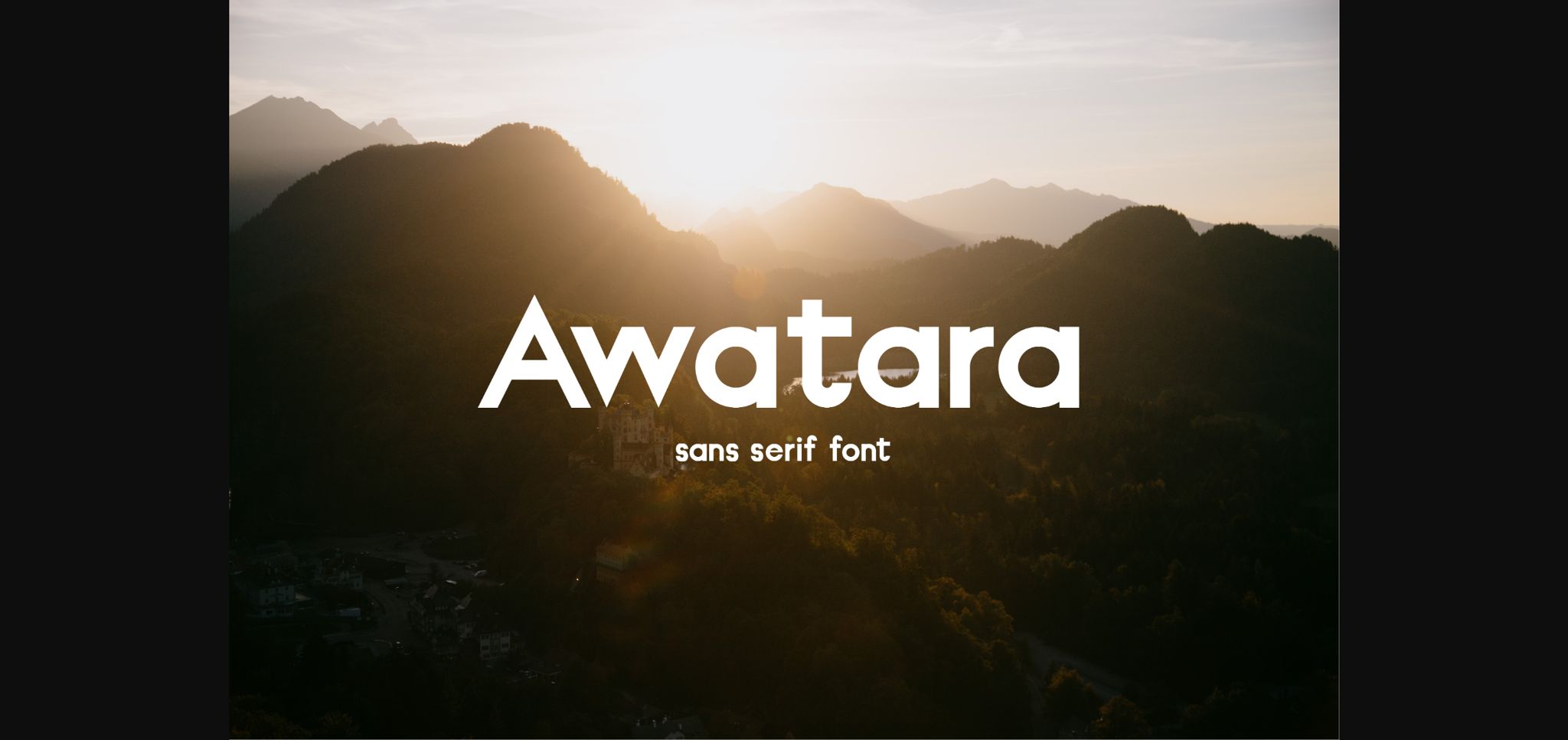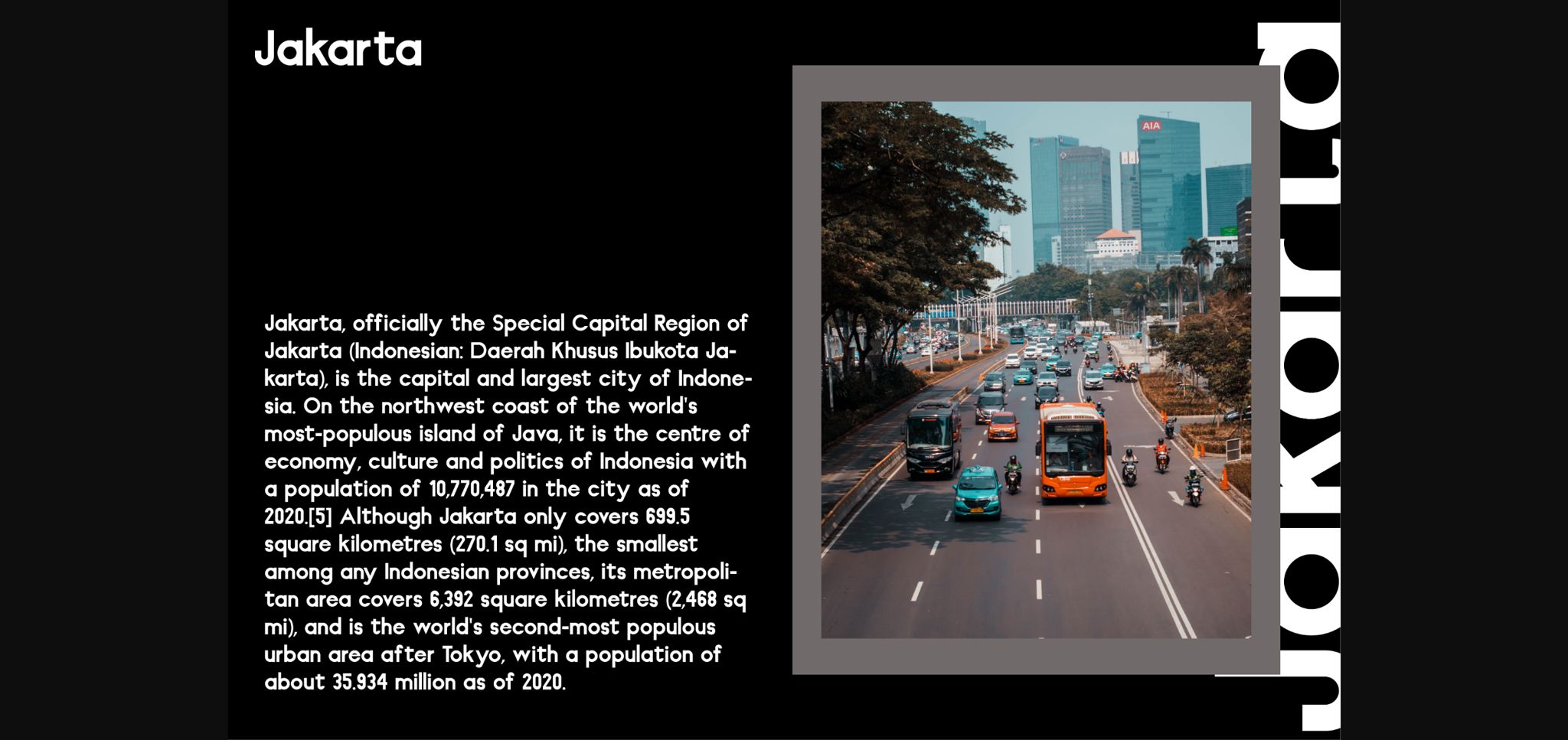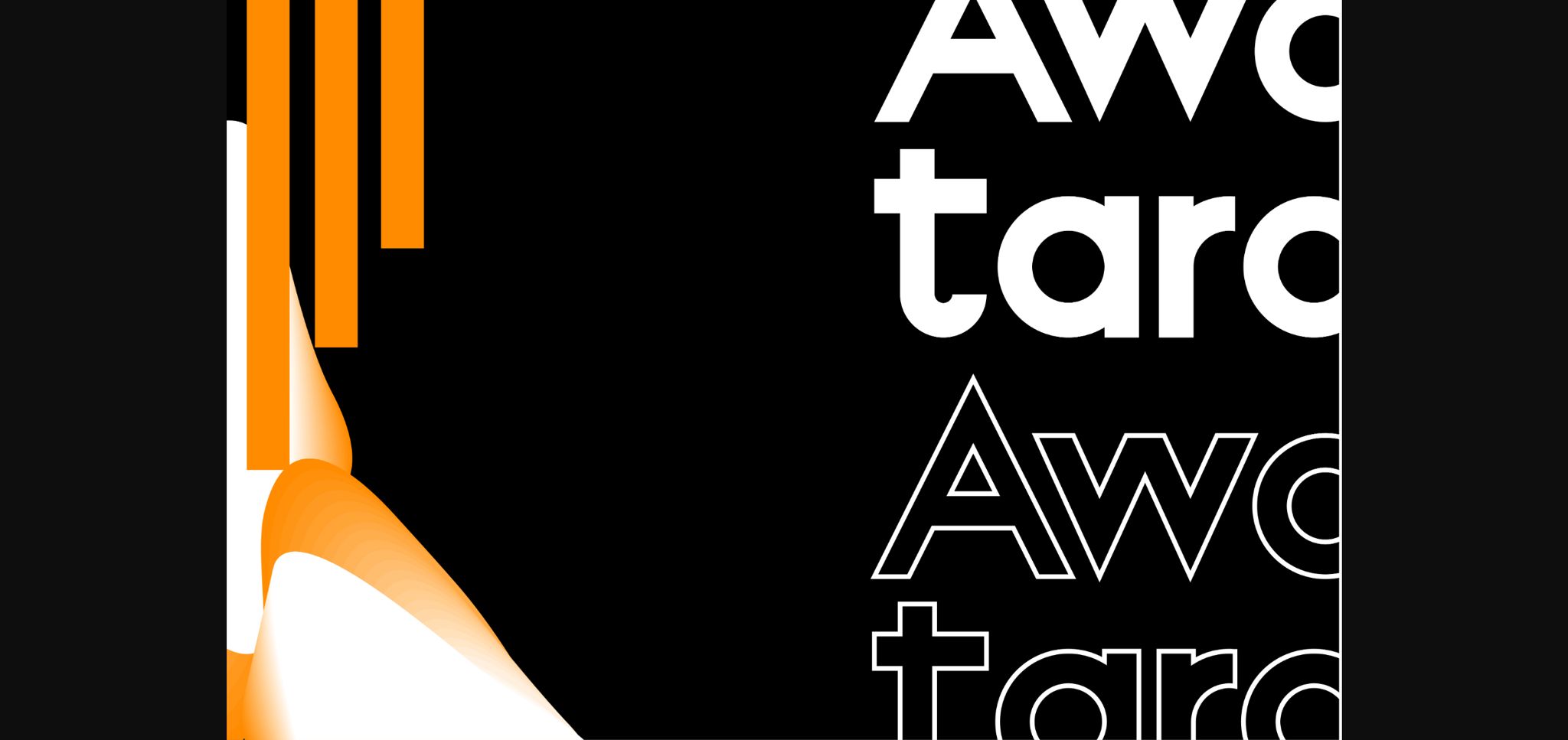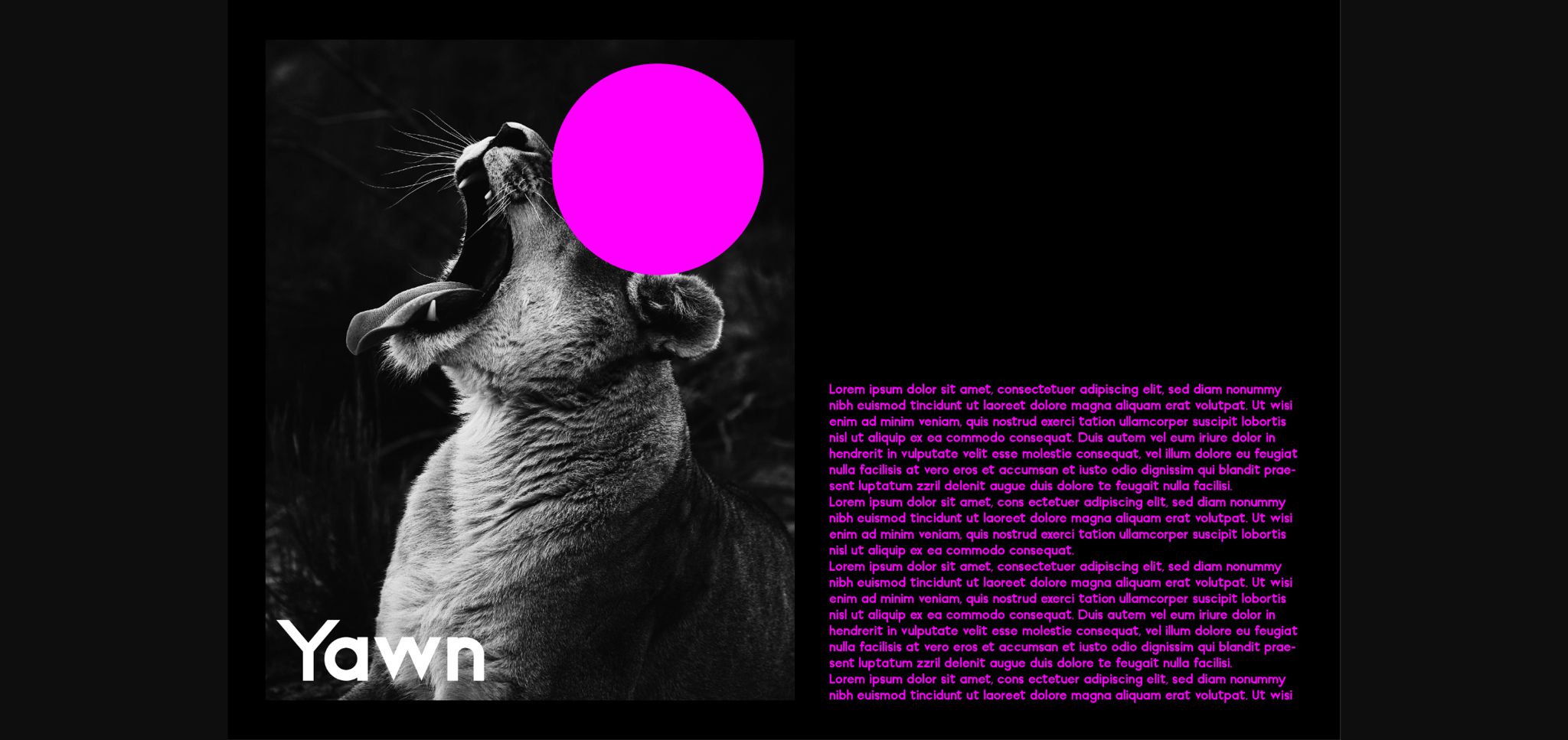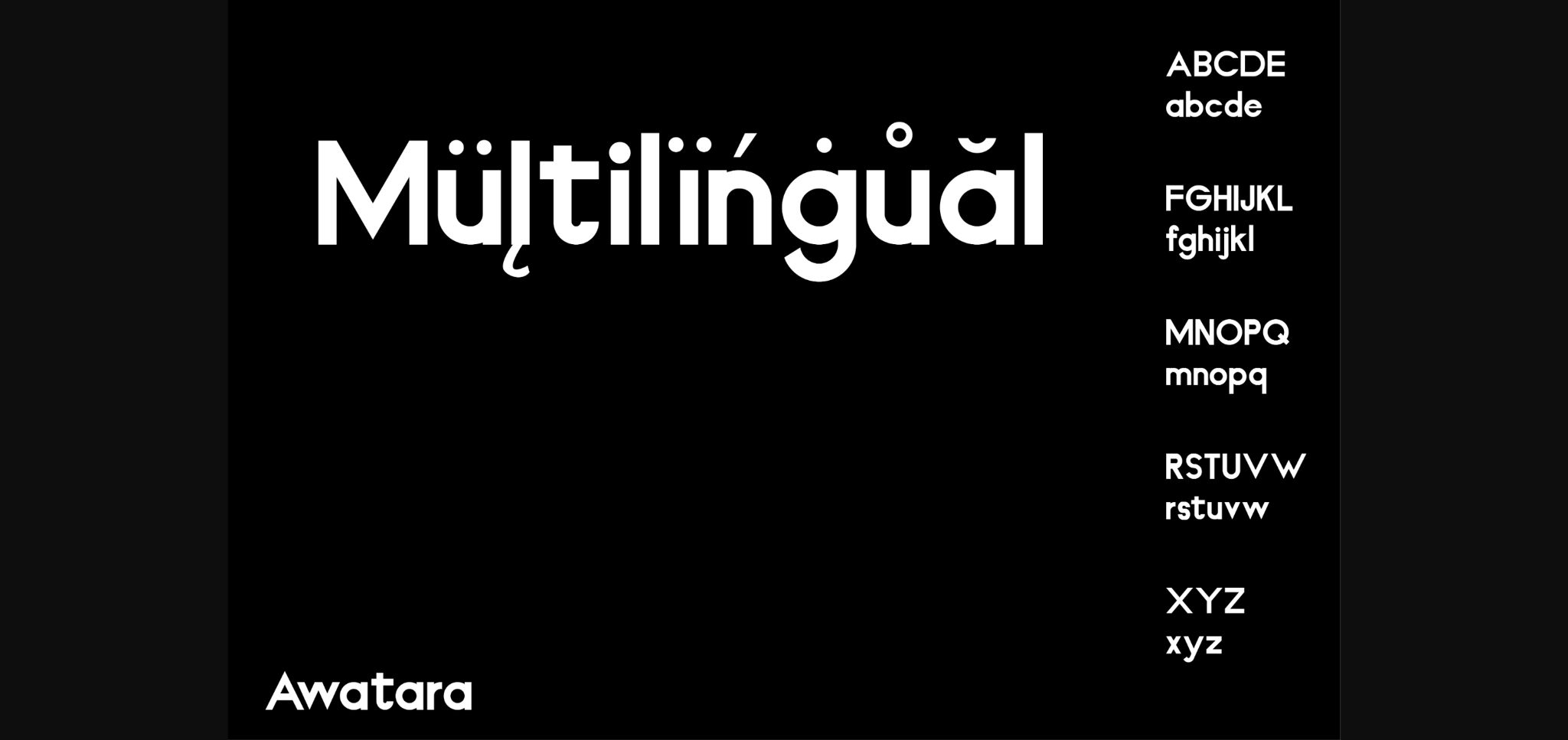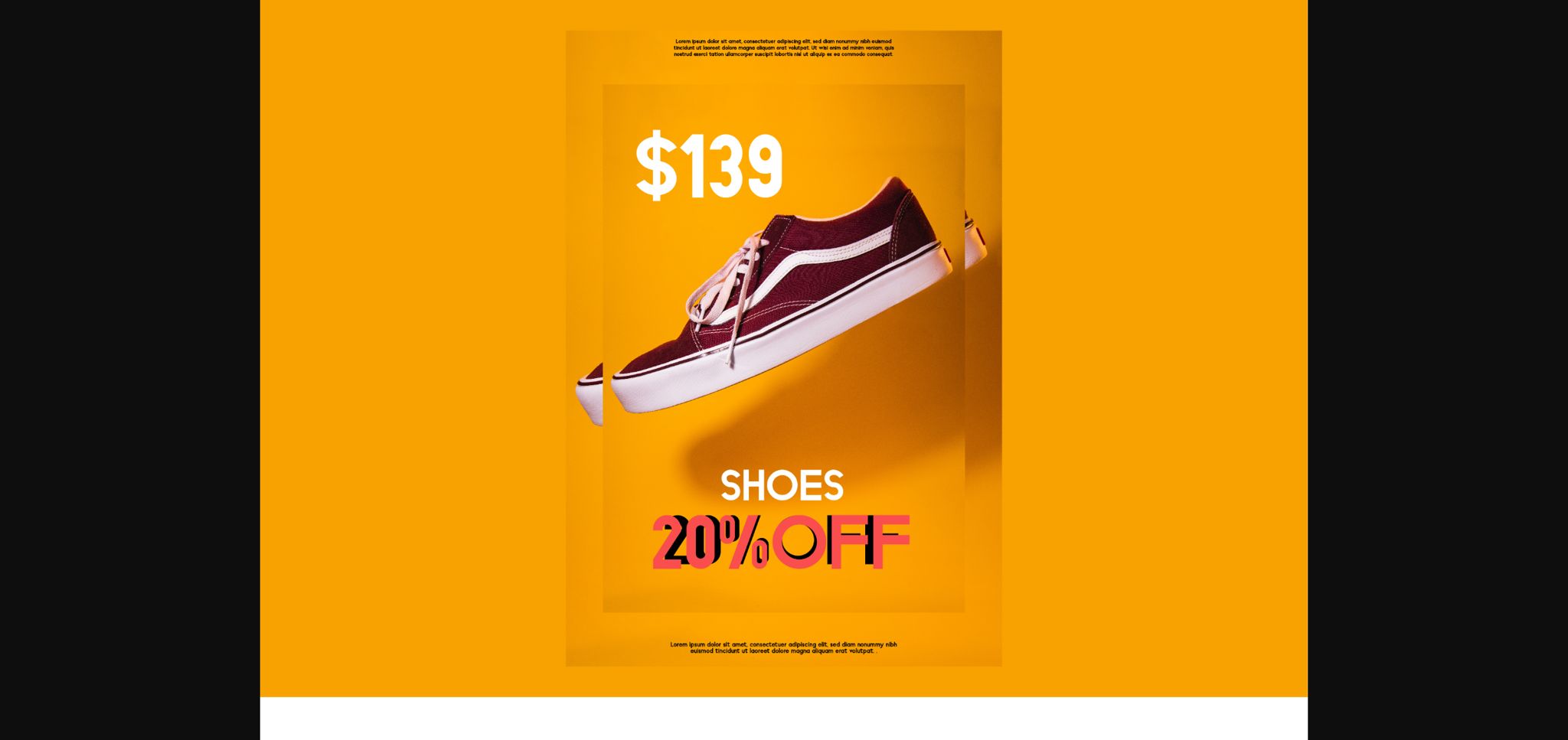
HomeSans Serif FontsAwatara Font Sans Serif Fonts Awatara Font FacebookXPinterestWhatsApp 1 of 8 ... Awatara Font Poster 2... Awatara Font Poster 3... Awatara Font Poster 4... Awatara Font Poster 5... Awatara Font Poster 6... Awatara Font Poster 7... Awatara Font Poster 8... About Awatara Font Awatara is a simple and bold sans serif font. It can easily be matched to an incredibly large set of projects, so add it to your creative ideas and notice how it makes them stand out! DOWNLOAD NOW People also explored Maidstone Font Romantic & Harmonis Font Houston Palace Callingstone Font Winter Miracle Font Alt Deutsche Font Halloween Rules Font Simple Think Sweet Sephia Font 511 0 TagsAwataraAwatara Font Previous articleRose Flinch FontNext articleAquatrain Font LEAVE A REPLY Cancel reply Comment: Please enter your comment! Name:* Please enter your name here Email:* You have entered an incorrect email address! Please enter your email address here Website: Save my name, email, and website in this browser for the next time I comment. Personal Use Free Lion Teen Personal Use Free Read more about this font Eaglese Personal Use Free Read more about this font Roustel Personal Use Free Read more about this font Kellana Personal Use Free Read more about this font BLOG Fonts That Capture the Spirit of New York City New York City is more than just a place—it’s an experience, a rhythm, a visual language... Exploring Font Trends The 10 Best Handwriting Fonts to Add Personality to Your Designs How to Install and Use Fonts on Windows, macOS, and Web Projects